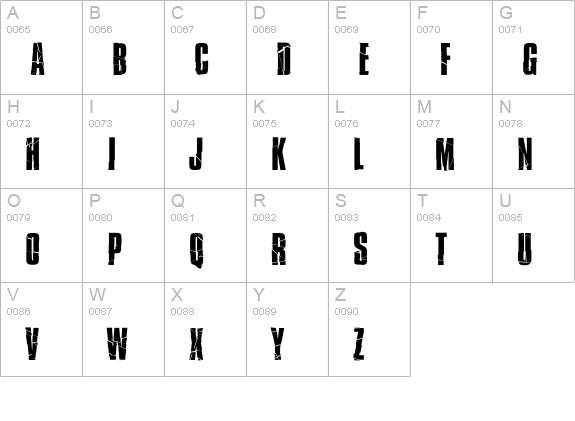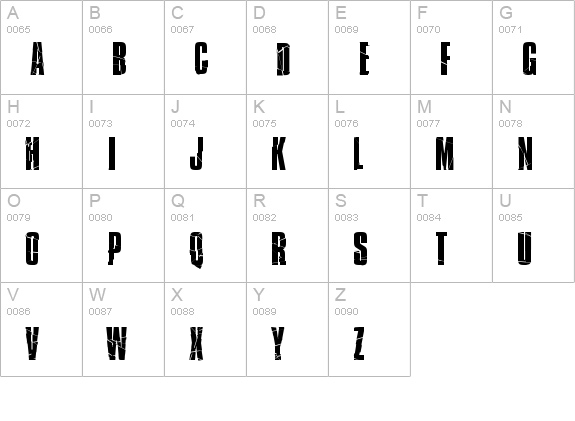
Bison Font Details
Bison font is a striking and bold typeface that exudes power and strength. Its sharp edges and modern design make it perfect for headlines, logos, and other display purposes. With its unique character and versatility, Bison font is sure to make your designs stand out from the crowd. What's even better is that Bison font is completely free to download at FontsMarket.com. This means that you can easily access this high-quality font without any cost, making it a valuable addition to your design toolkit. Don't miss out on the opportunity to use Bison font in your projects and elevate your designs to the next level. Download it today and unleash the power of Bison font in your creations!